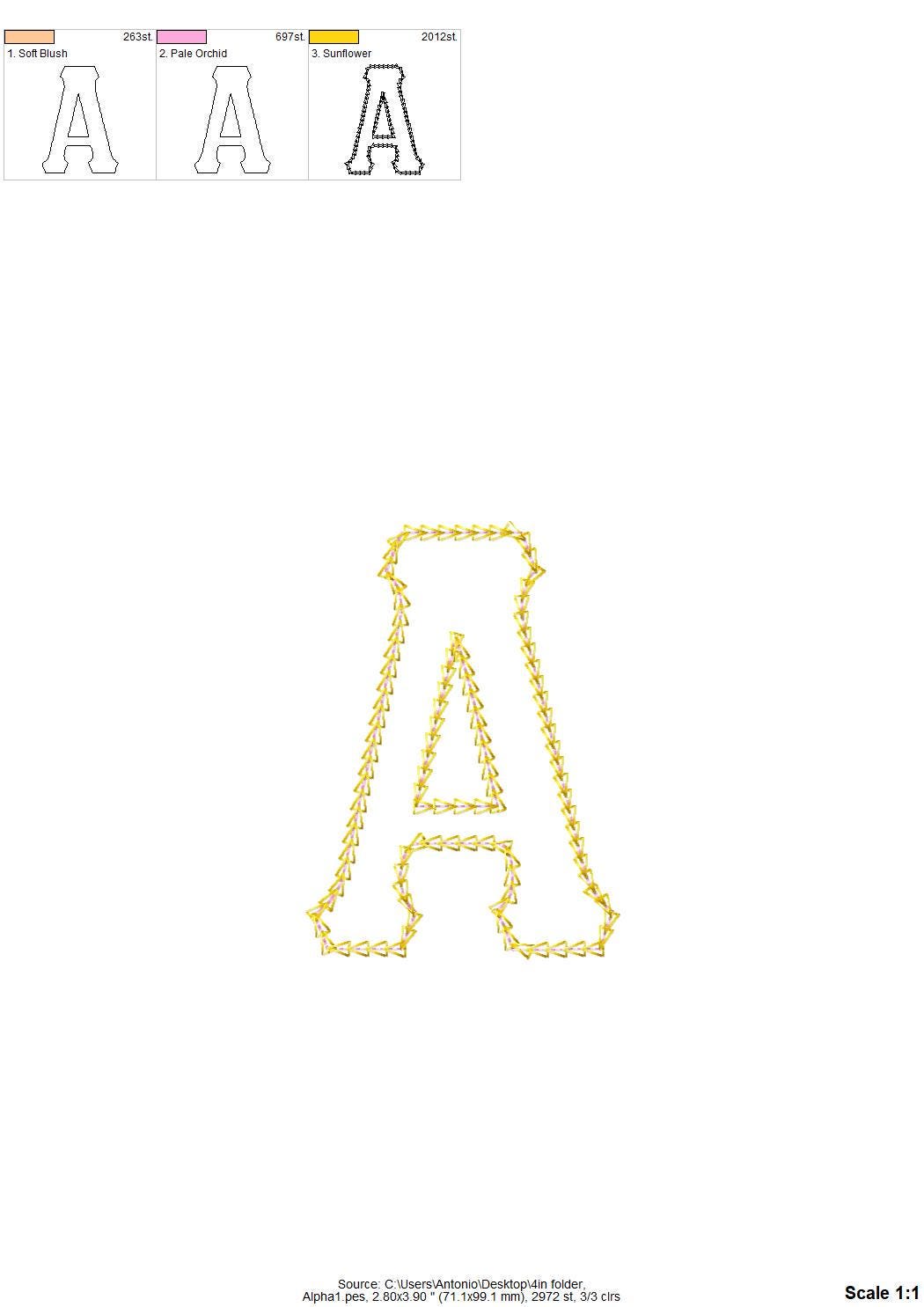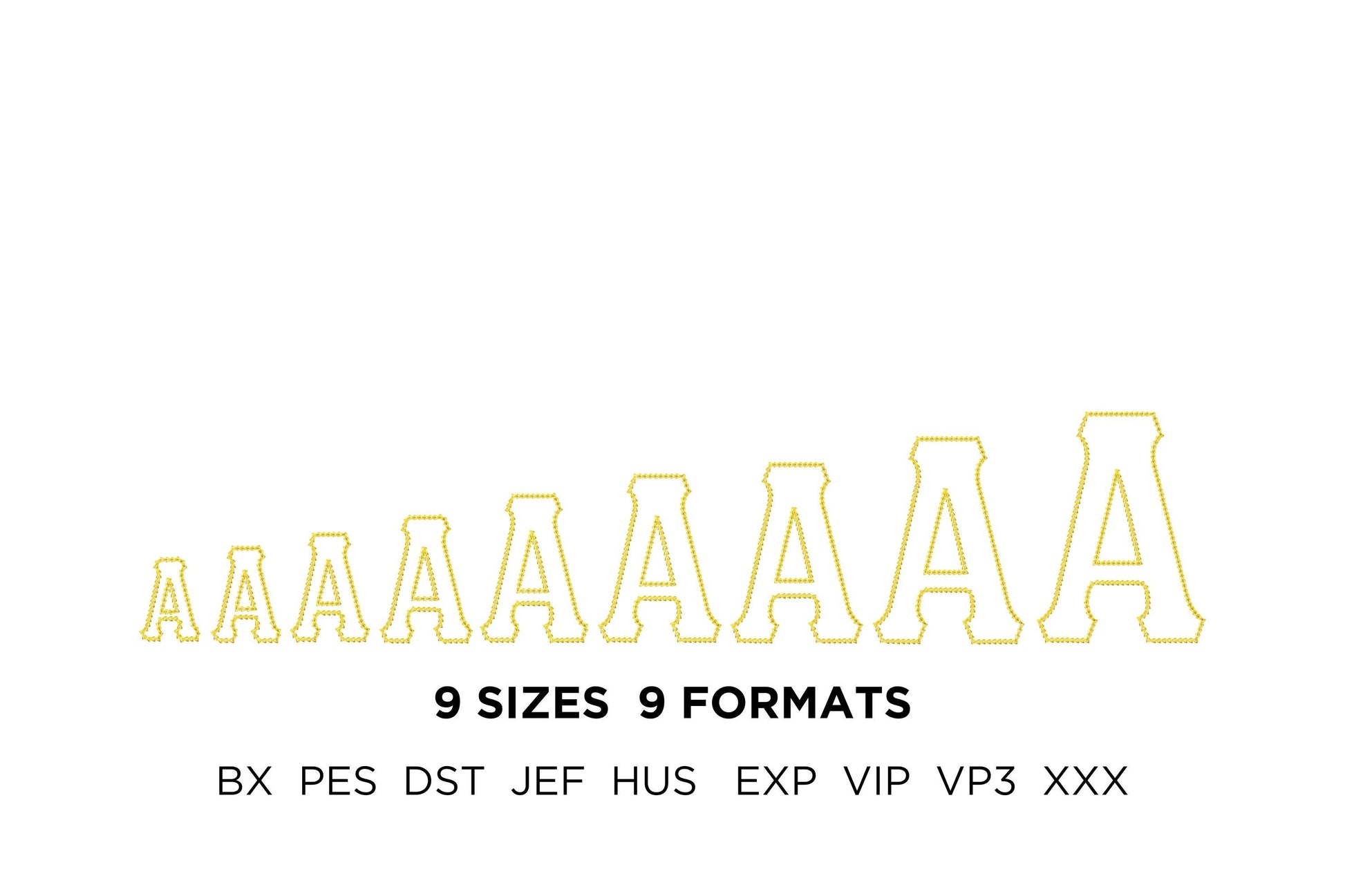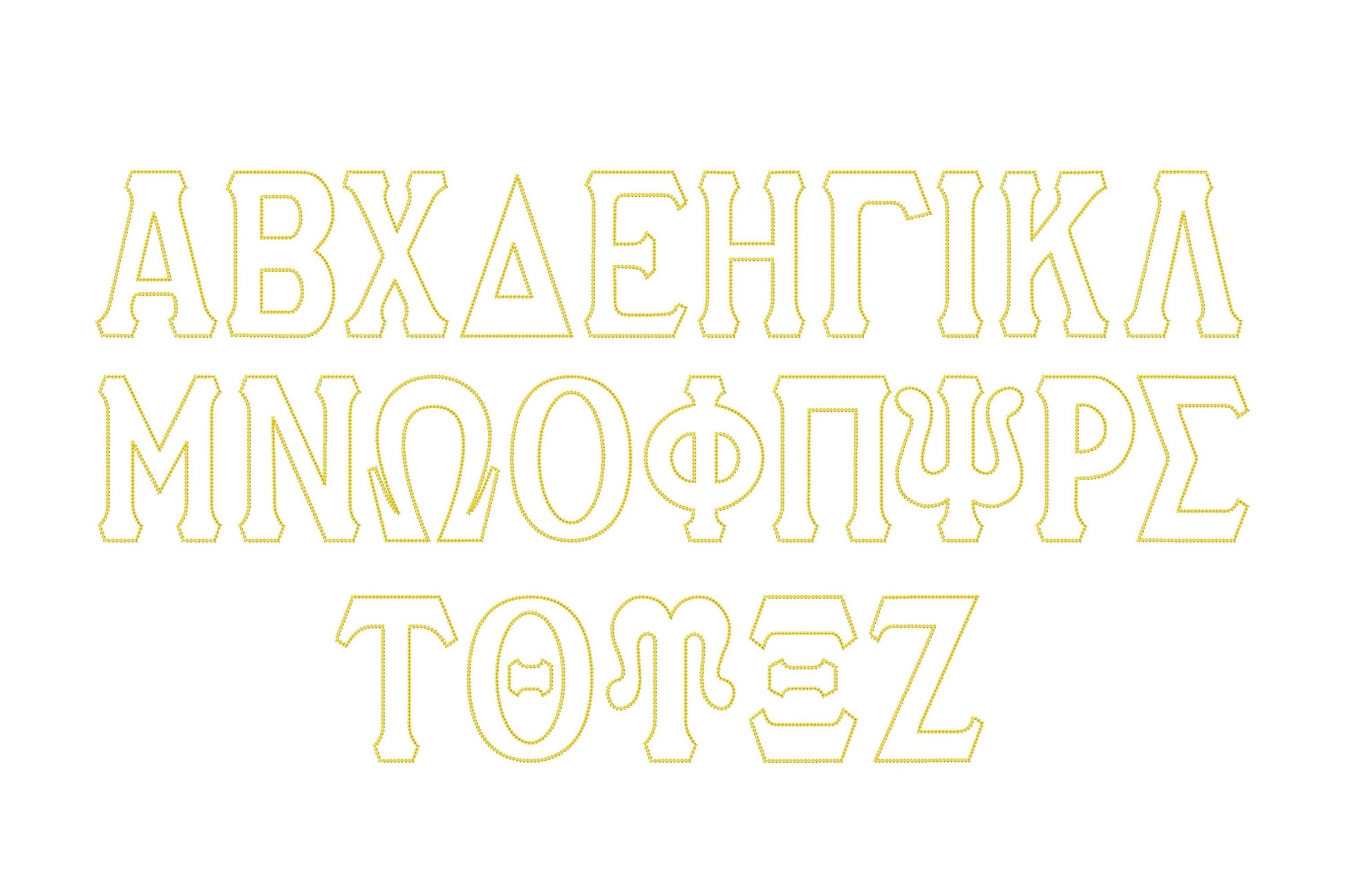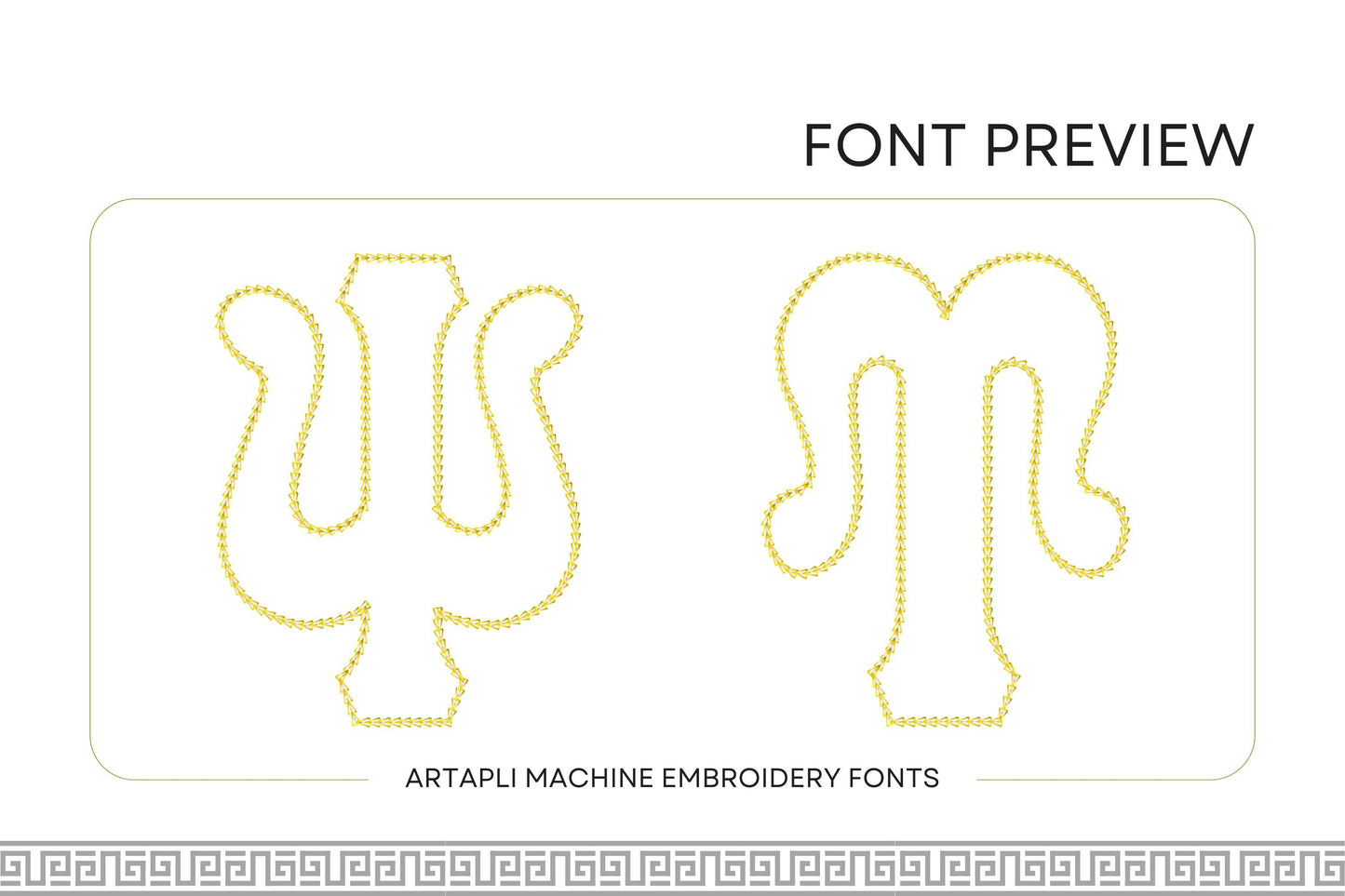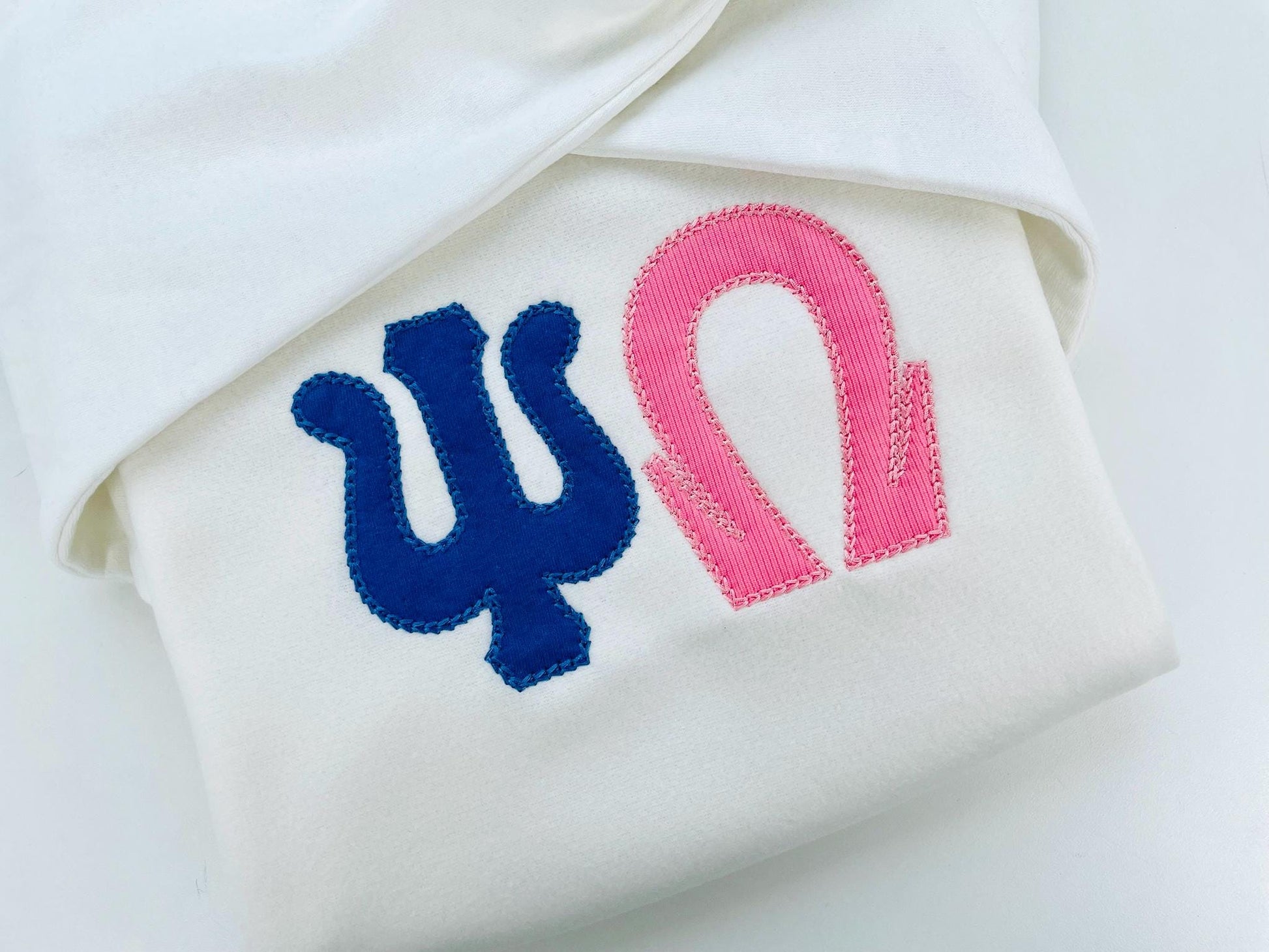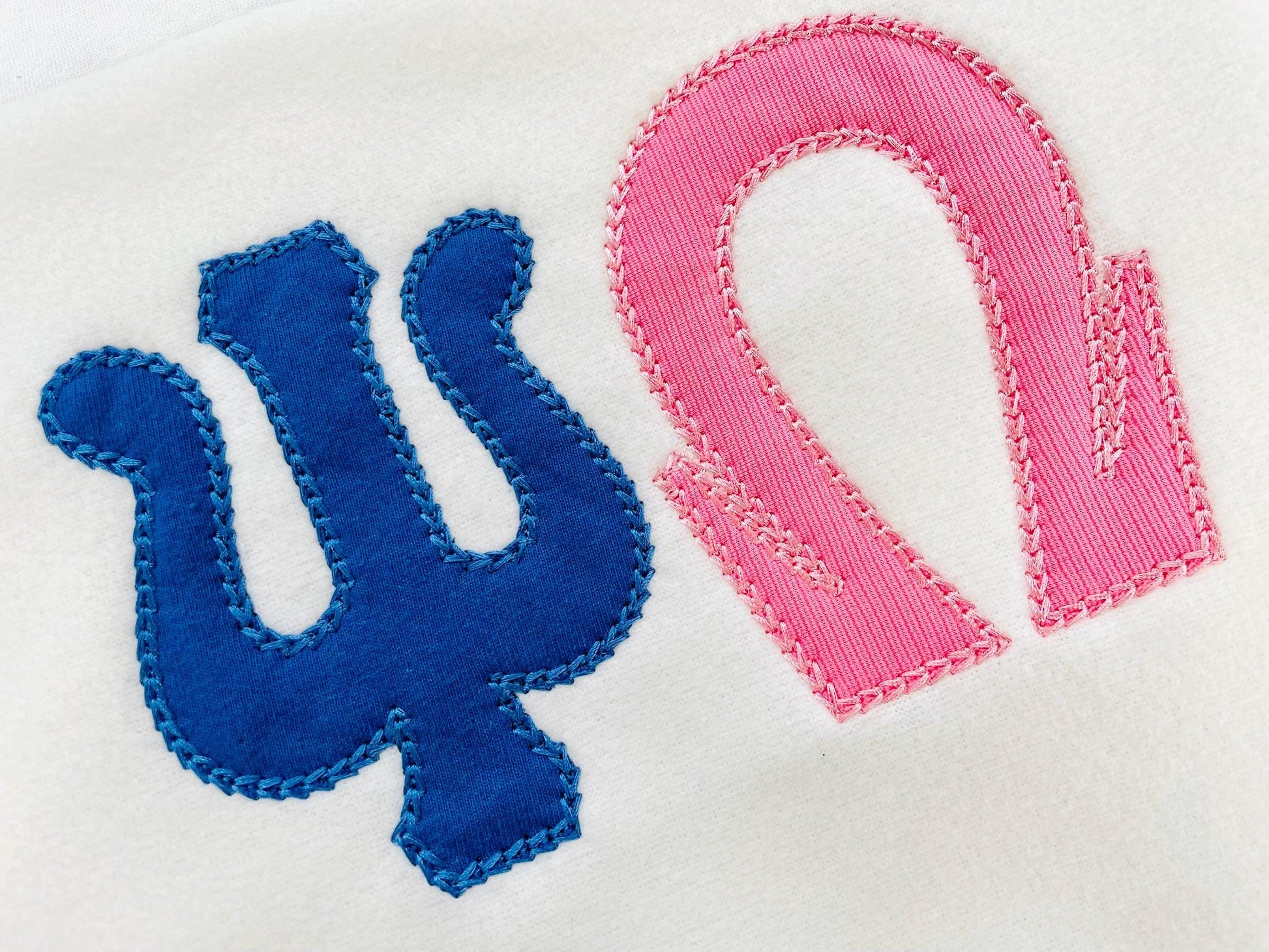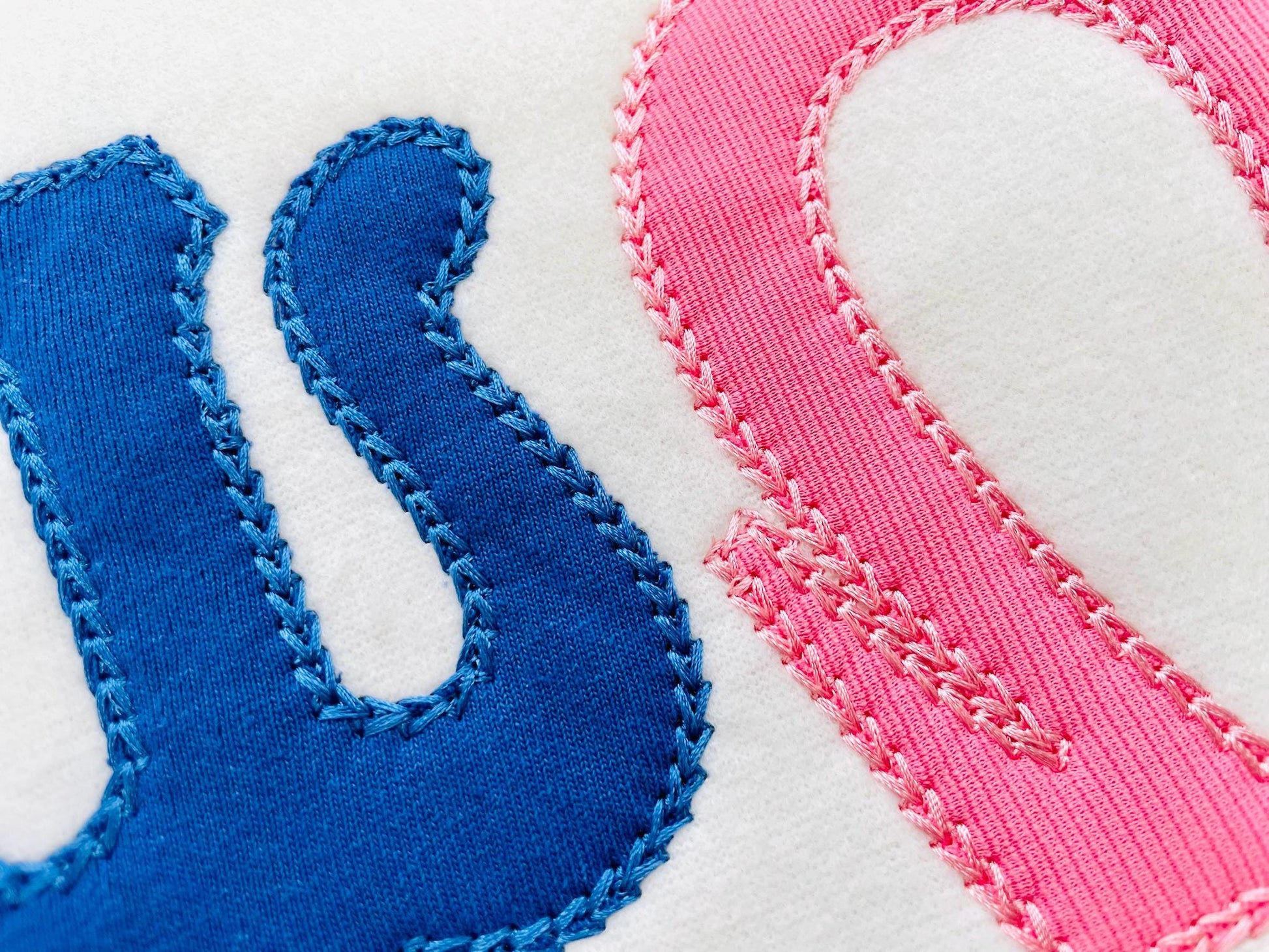
Greek Tall Font Applique Chain Stitch Outline
Or click to open the linkTall Greek letters as applique with a chain stitch outline. Great for sorority and fraternity shirts, jackets and bags.
All 24 Greek letters in nine sizes: 2.6, 3, 3.3, 4, 4.5, 5, 5.5, 6.3 and 7 inches. Applique with a chain stitch outline.
- 24 tall Greek letters, applique
- Chain stitch outline
- 9 sizes, 2.6 to 7 in